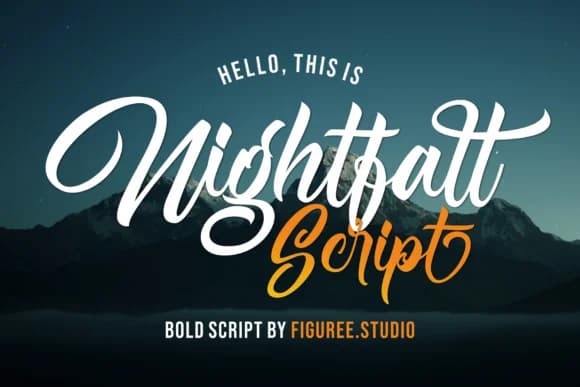
Nightfall by figuree studio is a contemporary script that balances sophistication with real accessibility. Clean letterforms and a relaxed flow give it distinct character without demanding perfection from whoever's wielding the brush, which matters deeply if you're working on projects where authenticity registers more than polish. The font holds up equally well at display sizes or scaled down to smaller applications, maintaining clarity and readability across different contexts and layouts.
There's a refreshing naturalness woven through this design that moves beyond stiff formality, making it feel at home in wedding invitation suites, boutique skincare packaging, handcrafted jewelry branding, and DIY craft sign projects. Calligraphic scripts can sometimes feel delicate or overly precious, fragile in the hands of less experienced designers, but Nightfall's measured weight makes it surprisingly versatile to work with. You can push it hard for bold headlines or dial it back as a supporting text element, which significantly expands its value in your toolkit. Wedding designers, small-business owners building distinctive Etsy product identities, and independent makers consistently find it strikes exactly the right tone when work needs personality without pretense or affectation.
Nightfall Font is a script font that shines as a display or heading face. Pair it with a clean sans-serif or serif font for body text — the contrast creates a clear hierarchy while the two styles stay balanced and easy to read.